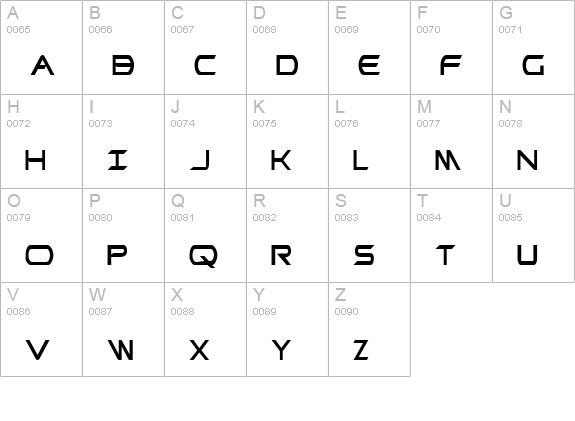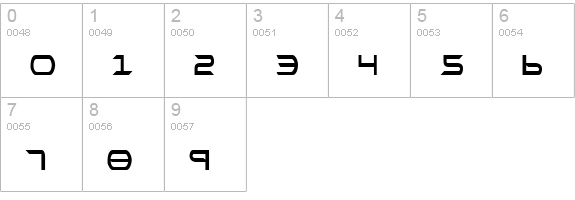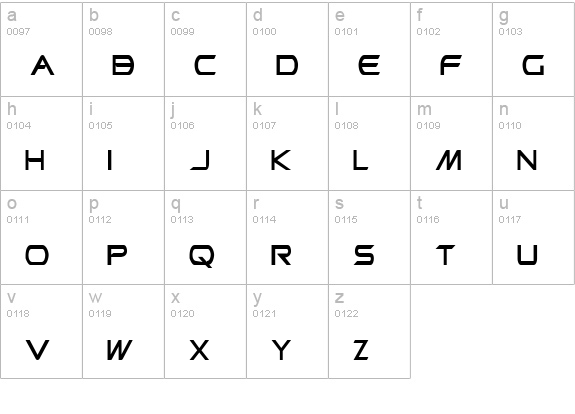
Promethean Condensed is a distinctive, condensed-width variant in the Promethean typeface family \xE2\x80\x94 well suited to design and typography projects.
Promethean Condensed font is a sleek and modern typeface that exudes sophistication and elegance. Its condensed style makes it perfect for a wide range of design projects, from branding to editorial design. The sharp lines and clean curves of Promethean Condensed font give it a contemporary feel that is sure to make your work stand out. What's even better is that Promethean Condensed font is available for free download at FontsMarket.com. This means that you can easily access this stylish font and incorporate it into your projects without any cost. Whether you're working on a professional presentation or a creative poster, Promethean Condensed font is a versatile choice that will elevate your designs to the next level. Download it today and see the difference it can make in your work!